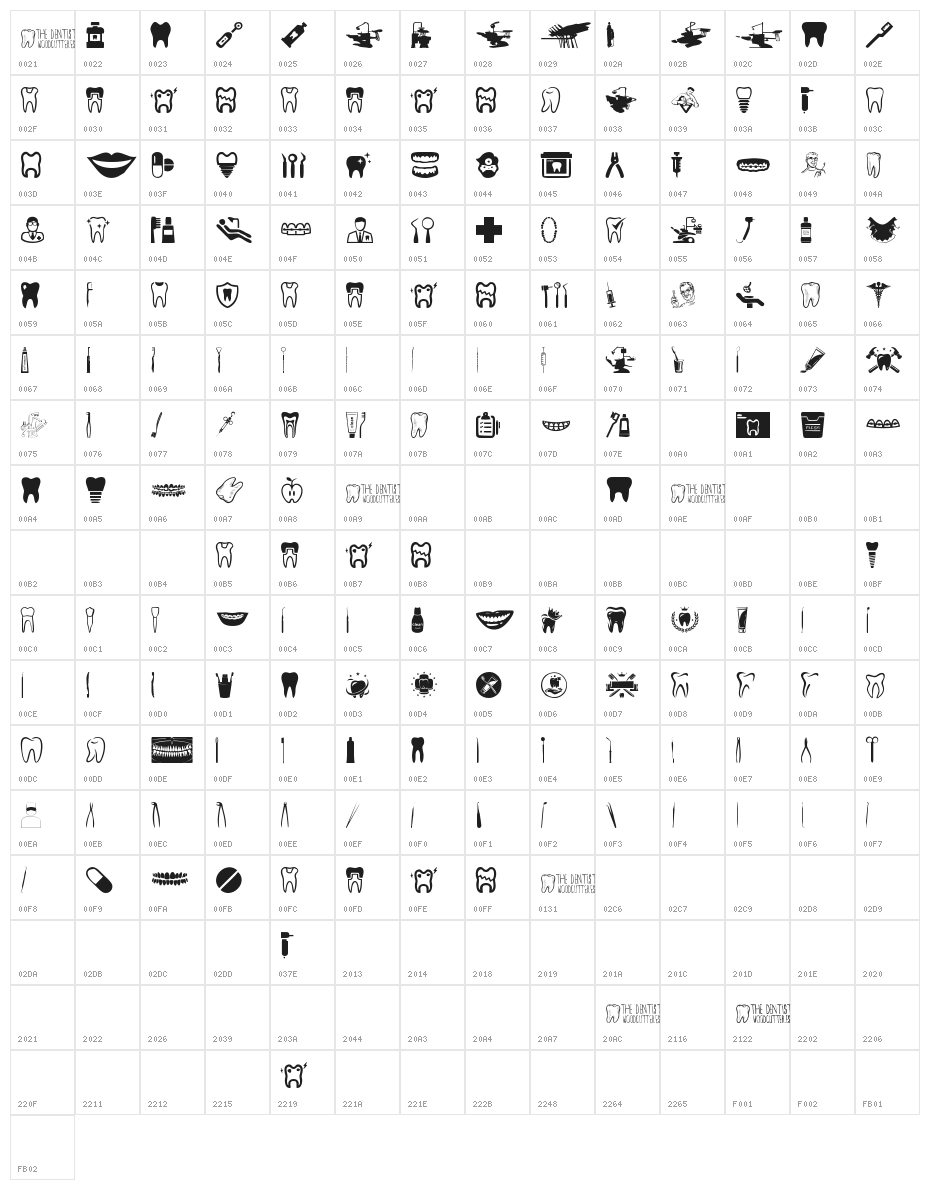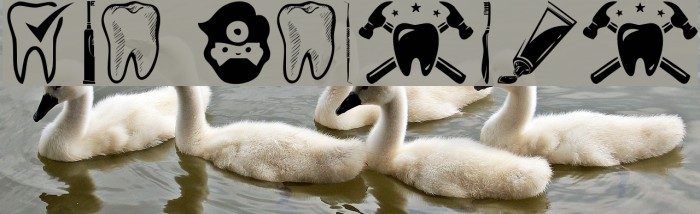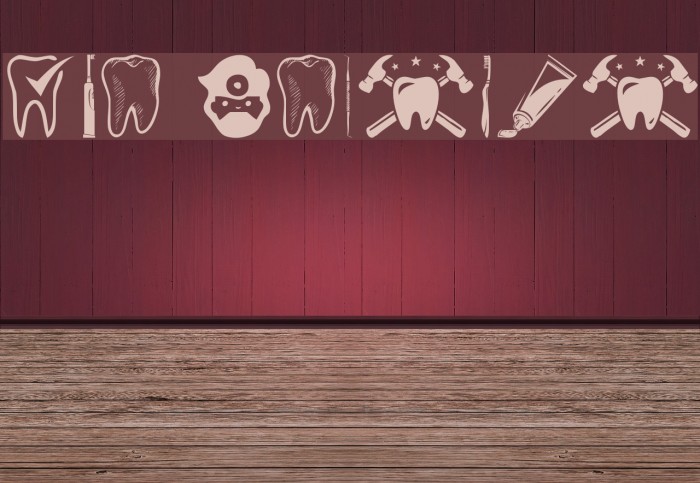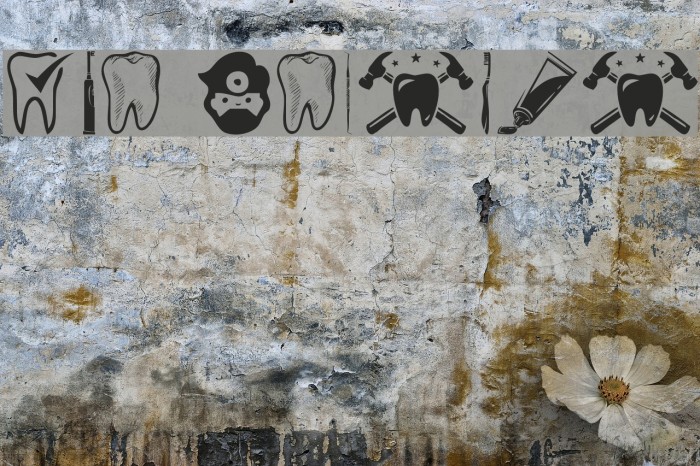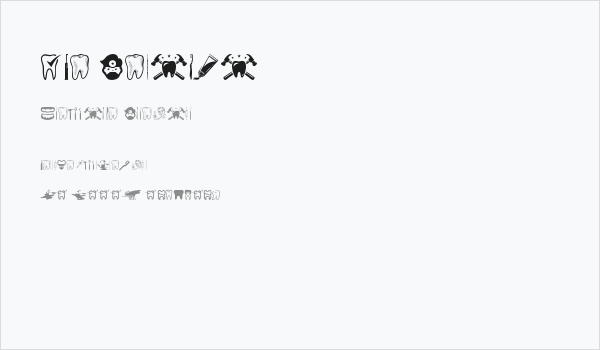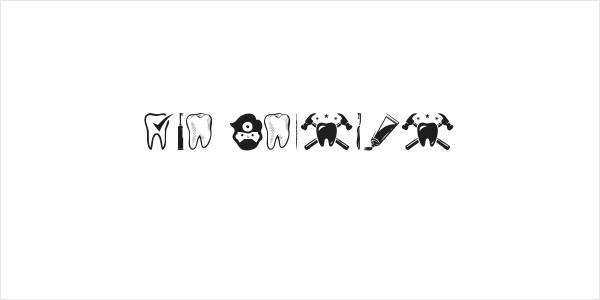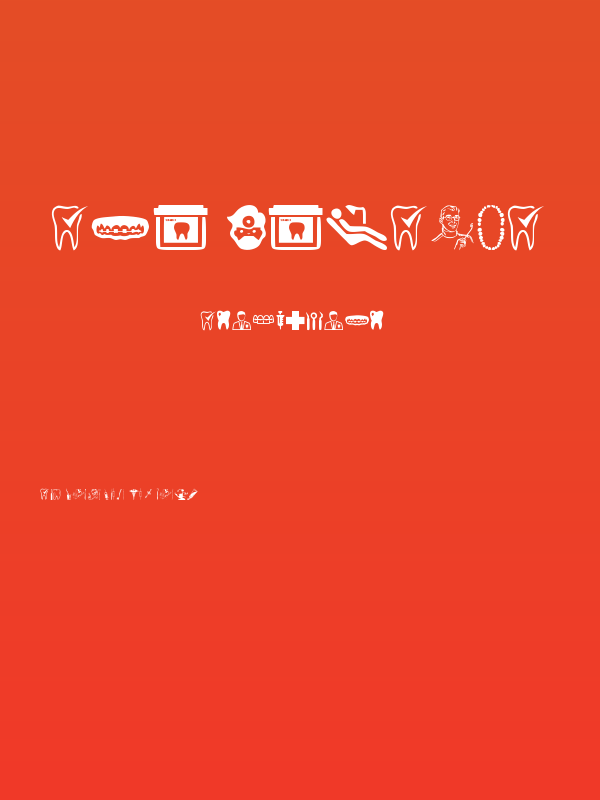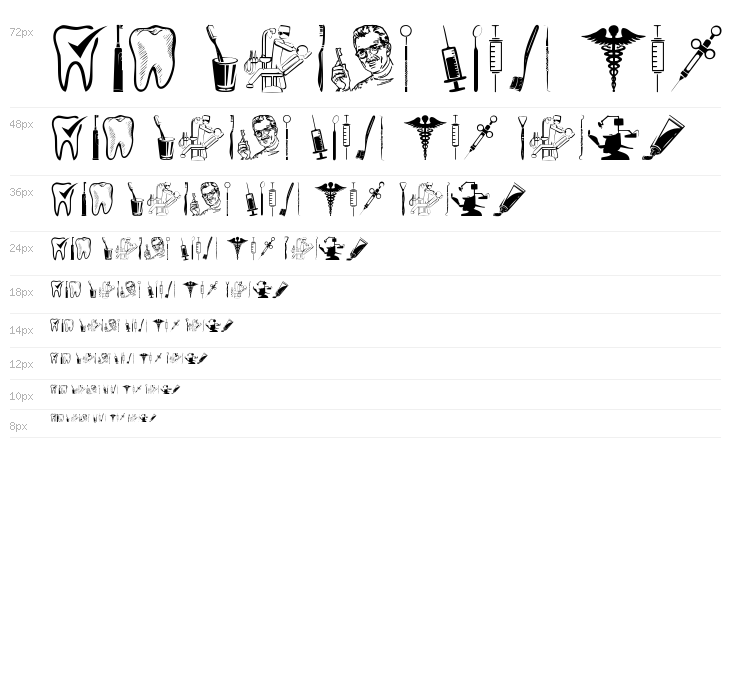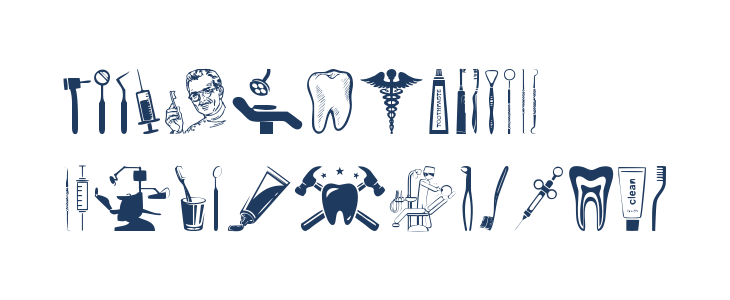
The Dentist Font
The Dentist Description
A dental-themed decorative font composed entirely of dental icons, illustrations, and tools, featuring a variety of dentist-related imagery such as teeth, toothbrushes, dental chairs, and equipment. The glyphs are pictorial and highly detailed, with a playful and illustrative style.
| Overall Style | Decorative, Playful, Thematic |
| Use Case | Logos, Posters, Educational graphics, Themed signage |
| Proposed Projects | Dental clinic branding, educational materials, posters, infographics, themed event invitations. |